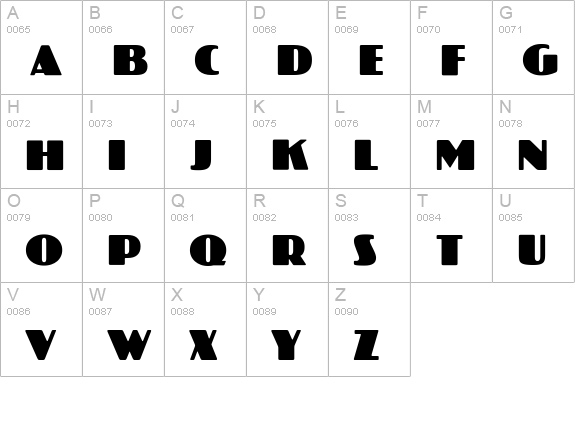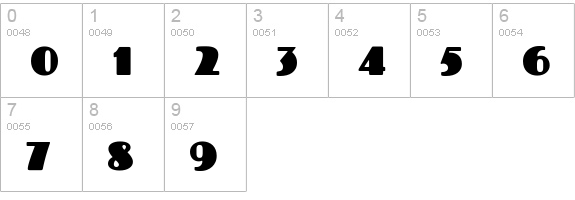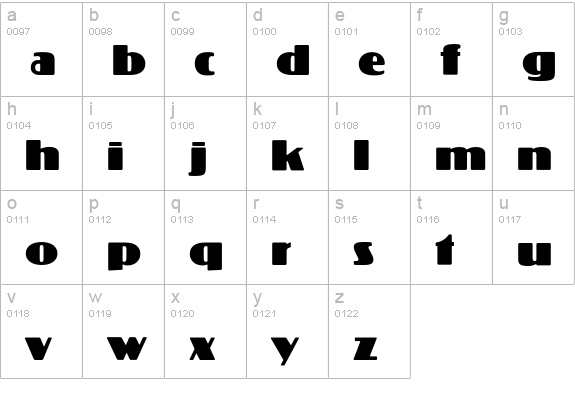
CgKoloss Font Details
CgKoloss font is a stunning display typeface that exudes power and sophistication. With its bold, chunky letterforms and sharp edges, this font commands attention and makes a bold statement in any design project. Perfect for headlines, logos, posters, and branding materials, CgKoloss adds a touch of modern elegance to any layout. The best part? CgKoloss font is available for free download at FontsMarket.com. This means you can easily access this versatile typeface and use it in your projects without breaking the bank. Whether you're a professional designer or a hobbyist looking to add a stylish touch to your creations, CgKoloss font is a perfect choice. Download it today and elevate your designs with this eye-catching and impactful font.